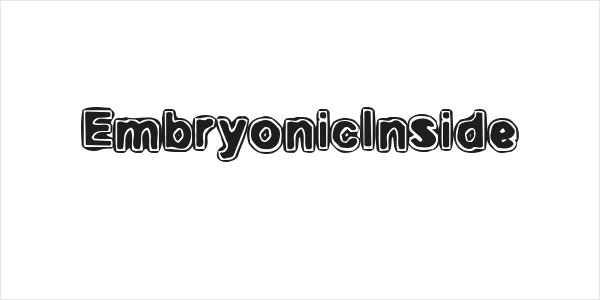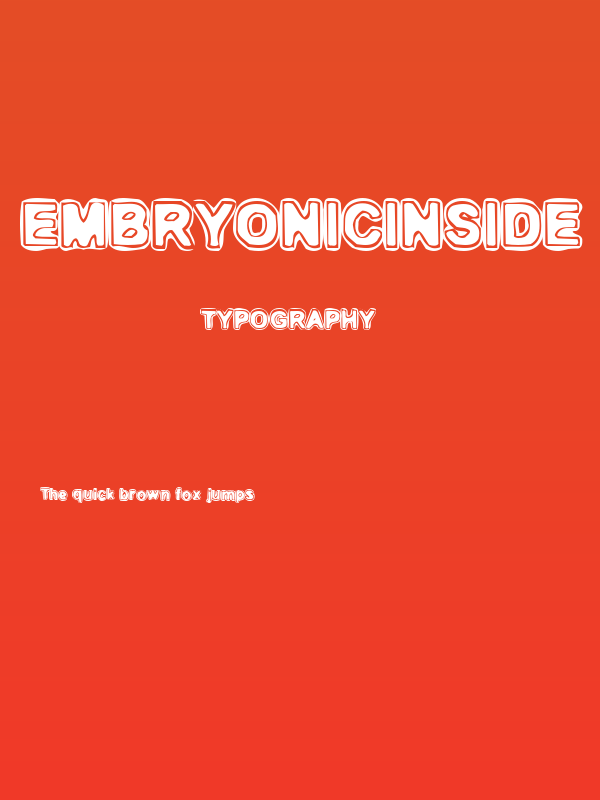
EmbryonicInside Font
EmbryonicInside Description
This font features a bold, playful style with thick outlines and a three-dimensional effect that gives it a unique, eye-catching appearance. The characters are rounded and slightly inflated, creating a sense of fun and whimsy. The uppercase and lowercase letters maintain a consistent style, with the lowercase being slightly smaller but equally bold. Numbers and special characters are designed to match the overall playful aesthetic, making them suitable for creative and informal applications. The font's strong presence makes it ideal for designs that require a standout, decorative element.
| Overall Style | Playful, Decorative |
| Proposed Projects | Ideal for children's book covers, playful branding, posters, and any design needing a fun, standout font. |